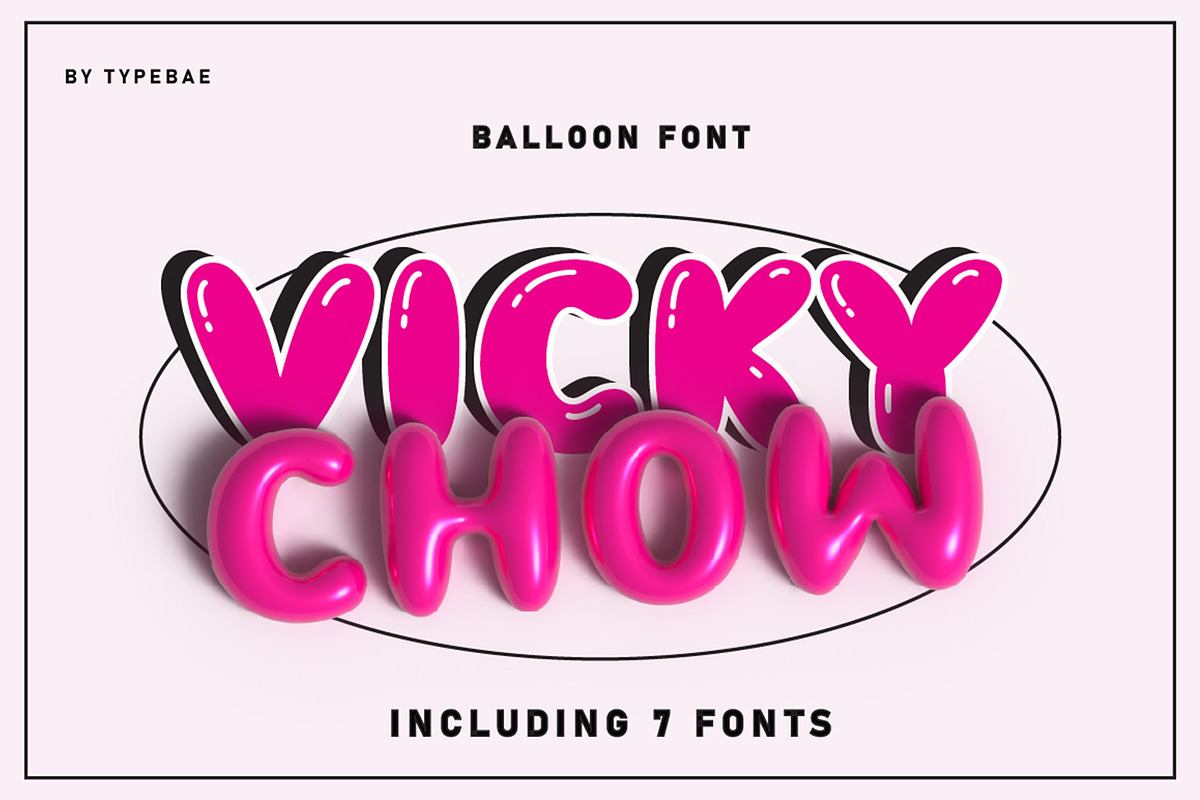
Vicky Chow - Chubby 3D Balloon Font Free Download
Vicky Chow – Chubby 3D Balloon Font Free Download
Vicky Chow – Chubby 3D Balloon Font Free Download is a fun, bubbly typeface that pops off the screen with playful energy and joyful character. Designed with a 3D inflated balloon style, this font is perfect for kids’ party invites, birthday banners, toy packaging, cartoon titles, and anything that calls for a vibrant, eye-catching look.
Its rounded, chubby letters and soft 3D effect give it a lighthearted, friendly vibe—perfect for drawing attention and putting smiles on faces. Whether you’re designing for children’s events or creating whimsical branding, Vicky Chow brings the fun in every curve.
Blow up your next design with the joyful bounce of Vicky Chow!